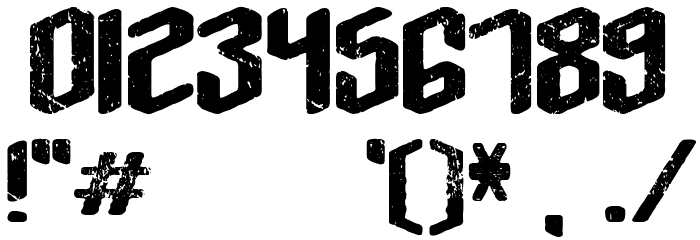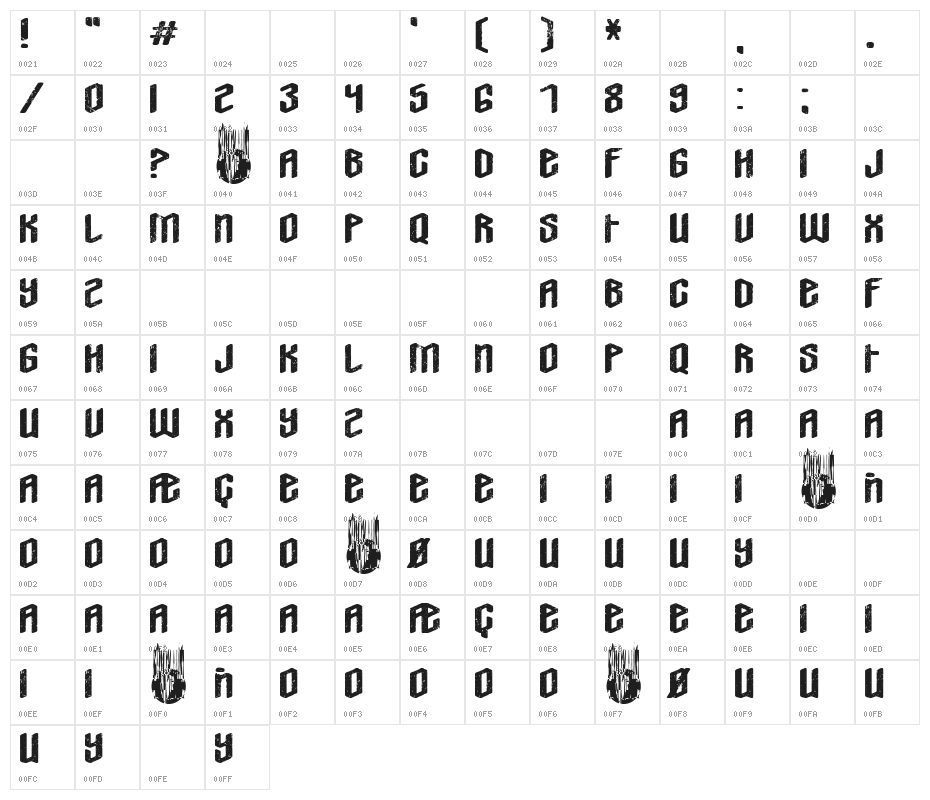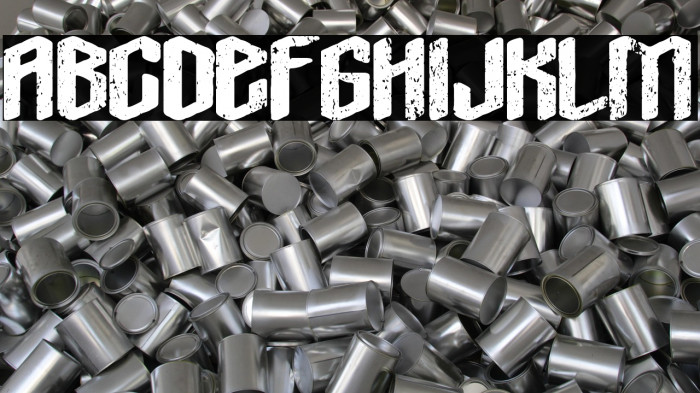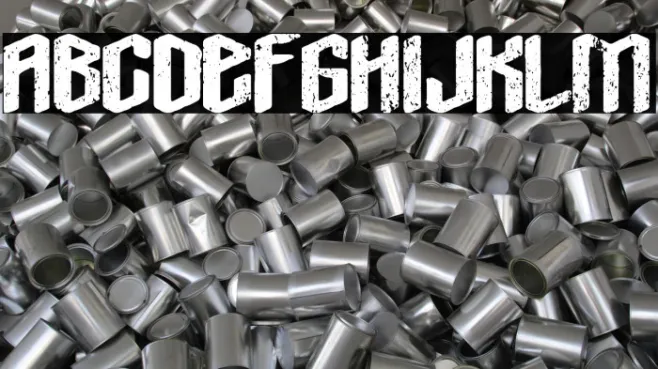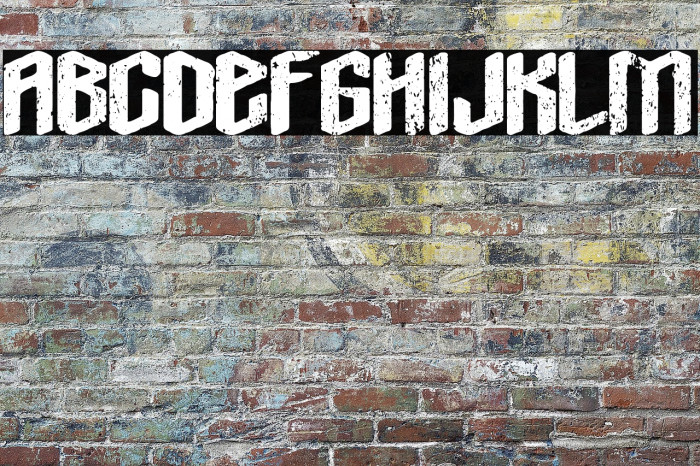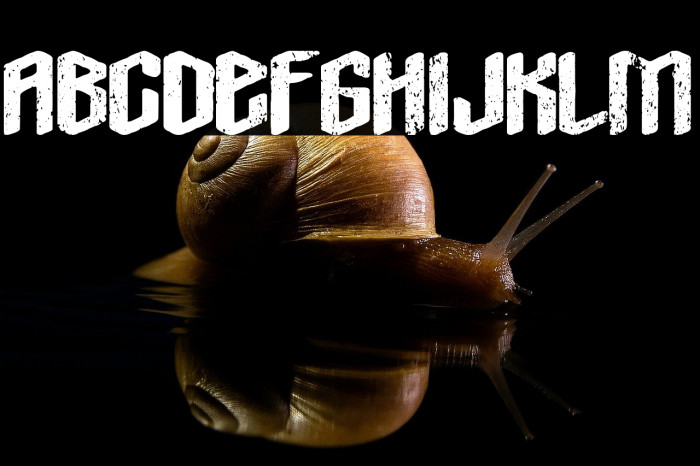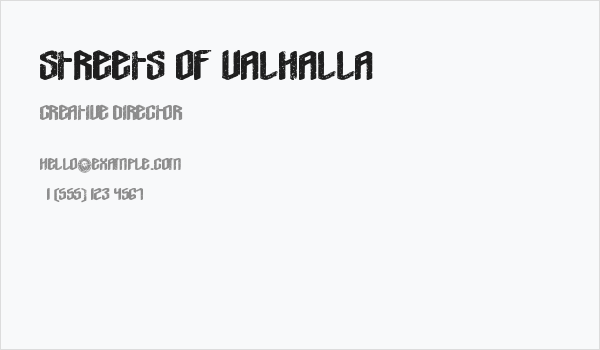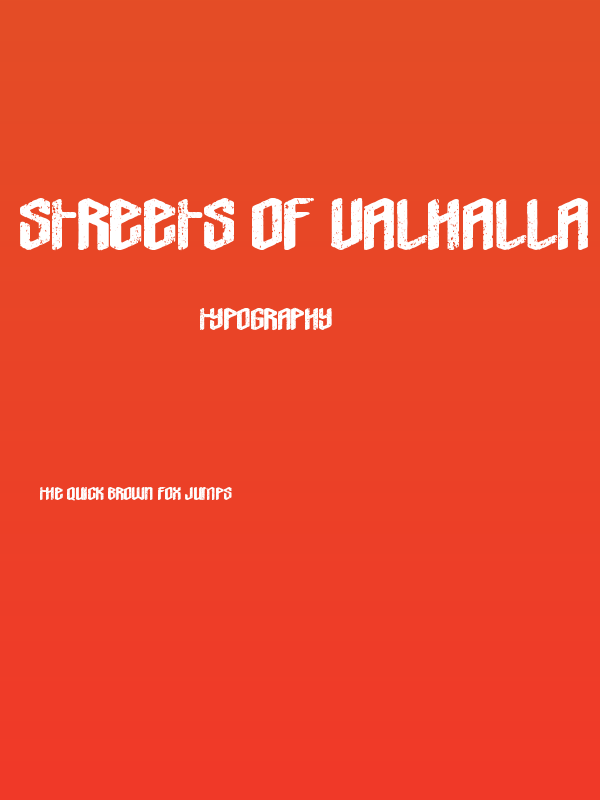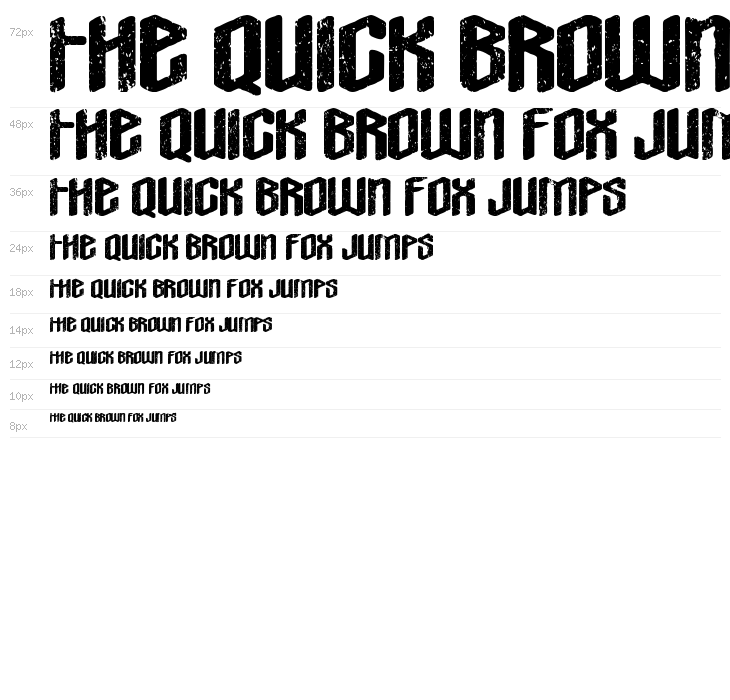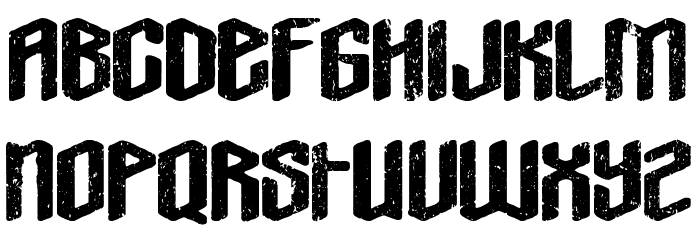
Streets Of Valhalla Font
Streets Of Valhalla Description
This font features a rugged, distressed style that evokes a sense of urban grit and toughness. The characters are bold and blocky, with a weathered texture that gives them a worn, vintage appearance. Each letter is uniquely designed with irregular edges and a slightly rough finish, adding to the overall rugged aesthetic. The uppercase and lowercase letters maintain a consistent style, while the numbers and special characters complement the alphabet with the same distressed look. This font is ideal for projects that require a bold, impactful presence with a touch of nostalgia or rebellion.
| Proposed Projects | Perfect for streetwear branding, music album covers, posters, and urban-themed designs. |